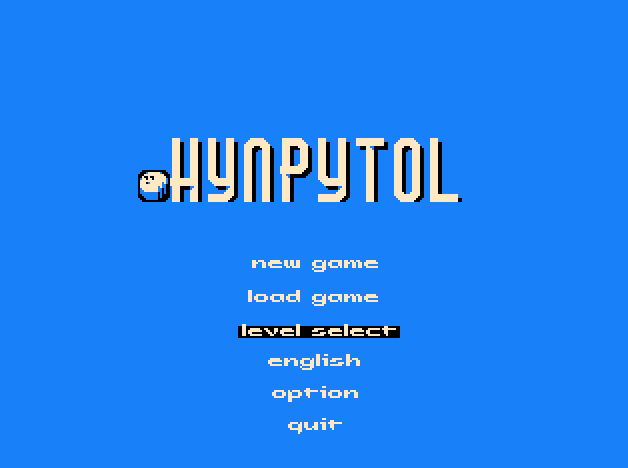
basic UI font of the game 'HYNPYTOL' Lowercase letters look better than uppercase ones. Feel free to use it, and if you get a chance, play this game - it's retro and cheesy enough for this font. |